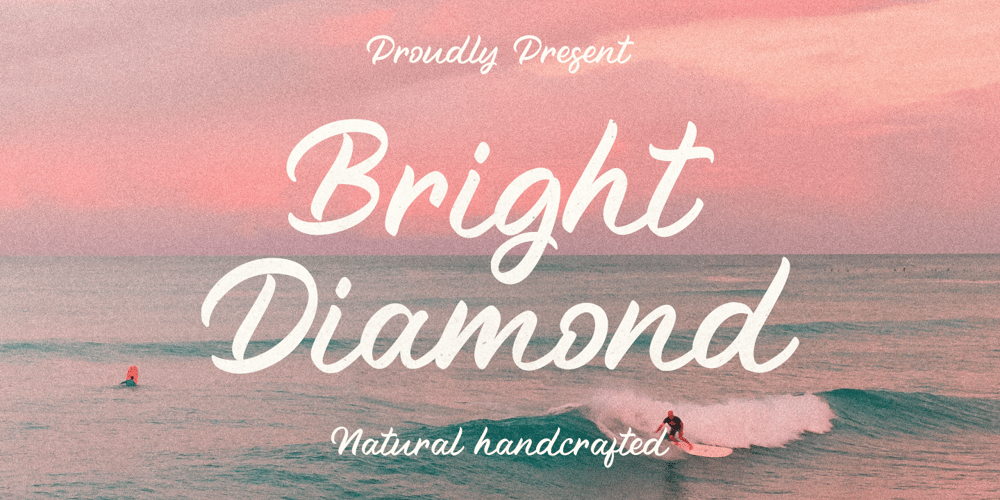
Bright Diamond
Bright Diamond font
Bright Diamond Font Family was designed by Doni Purwoko and published by Zeenesia Studio. Bright Diamond contains 2 styles and family package options. Bright Diamond – Handwritten FontBright Diamond is a script and regular handwritten font with a simple and classy style, this font is great for your next creative projects such as watermark on photography, logo design, wedding, invitation, quotes, book cover, business card, and many other design project. From business cards to photo watermarks.We hope you enjoy the font, please feel free to comment if you have any thoughts or feedback.Thanks for purchasing and glad to help you!